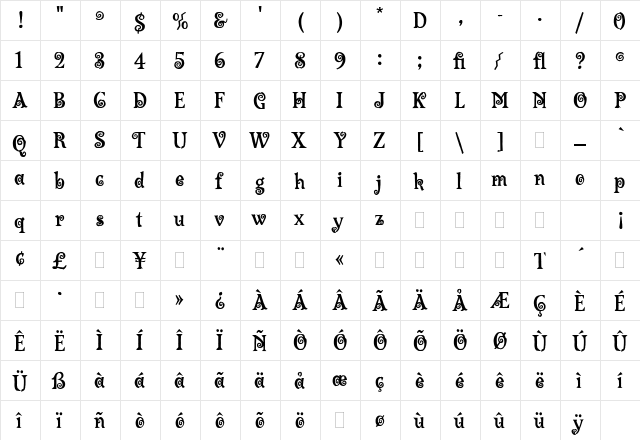
Lambada LET Regular
| Foundry | International Typeface Corporation |
| Designer | David Quay |
Design Context for Lambada LET Typeface
Lambada LET is a composed and adaptable typeface that performs quietly and consistently across a wide range of design contexts.